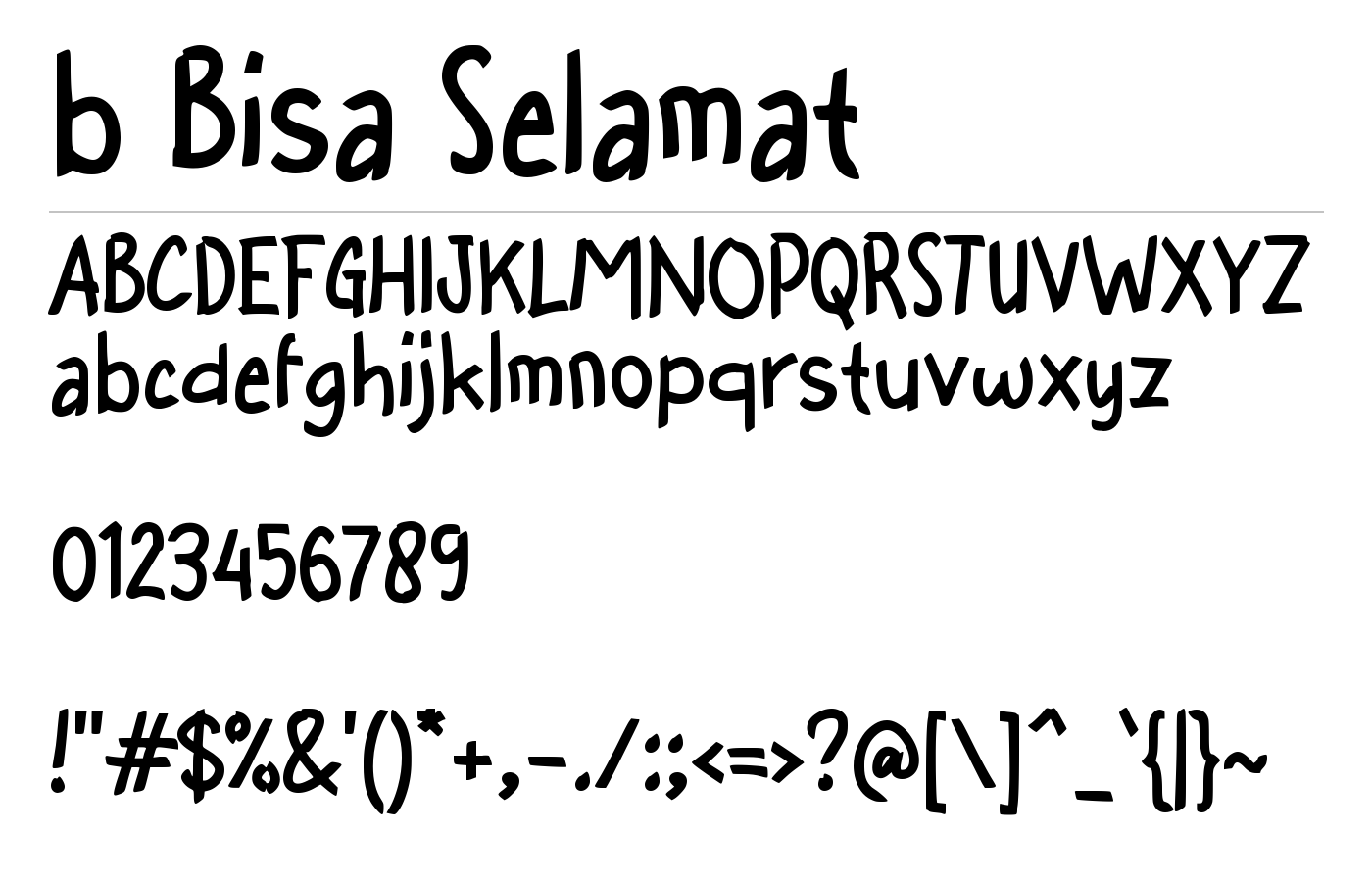
B Bisa Selamat is a playful sans serif font with a hand-drawn, informal feel. Its slightly irregular strokes and tall x-height give it a friendly and approachable character, making it ideal for casual branding, children's projects, and creative headlines. This font works well where a lively, human touch is desired without sacrificing legibility.
b Bisa Selamat Font
About b Bisa Selamat Font